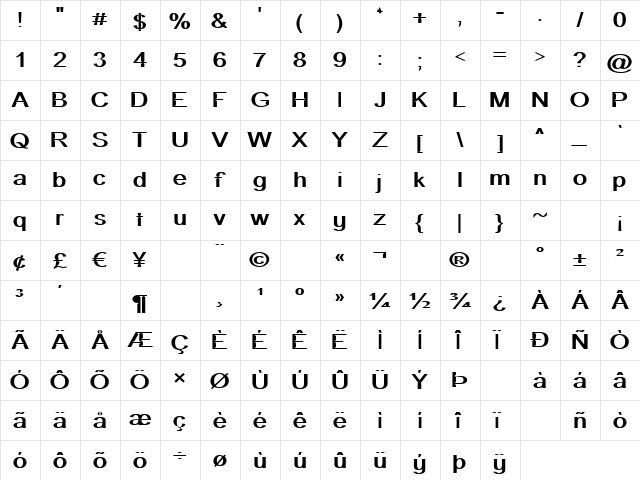
Primary Elector Straight Regular
Design Context for Primary Elector Straight Typeface
Primary Elector Straight is a composed and adaptable typeface that performs quietly and consistently across a wide range of design contexts.
Pro Tip: Use Primary Elector Straight in both headline and body roles to test its range before committing to a single application.